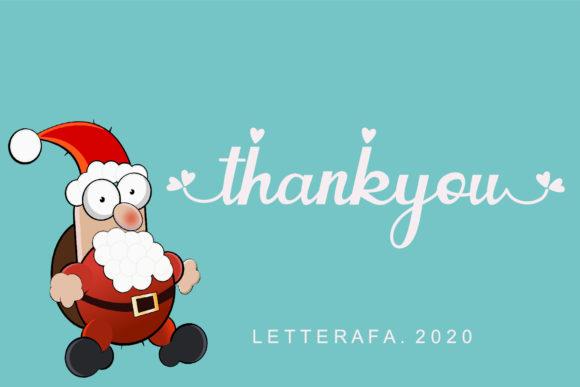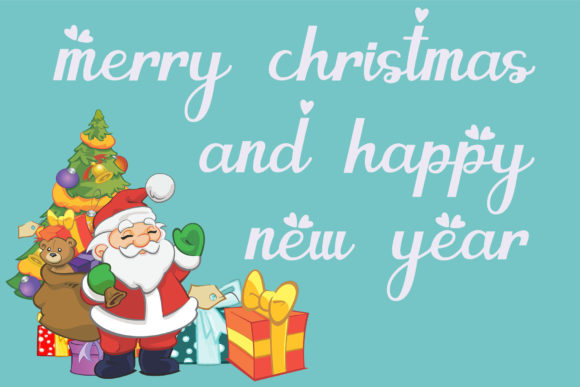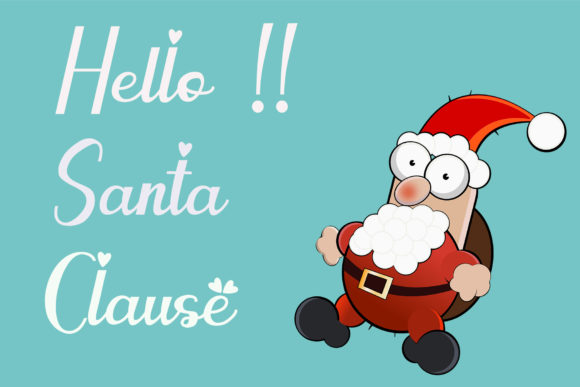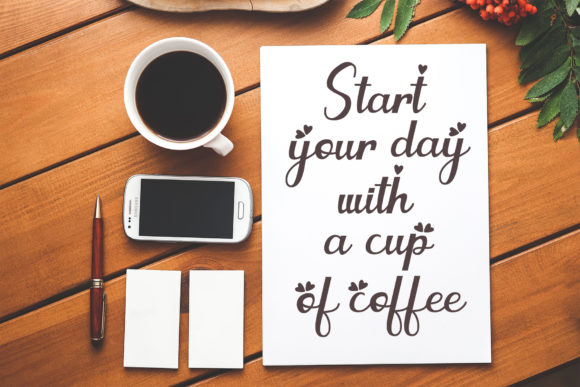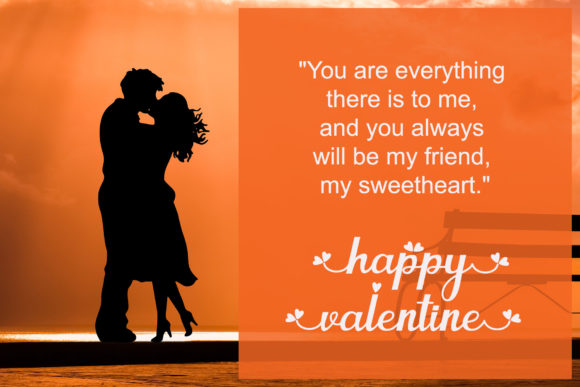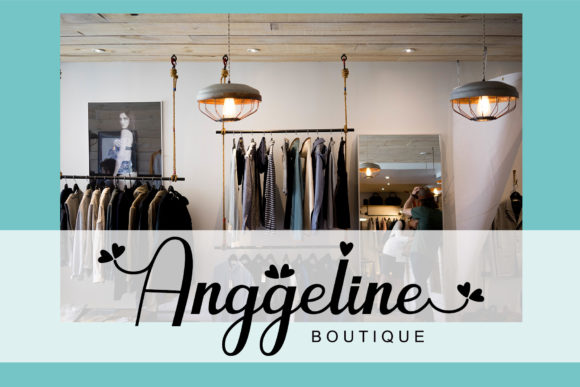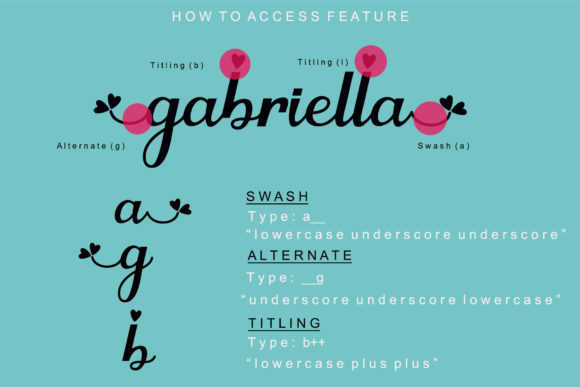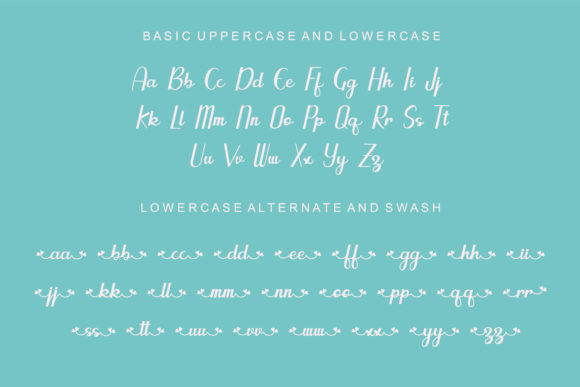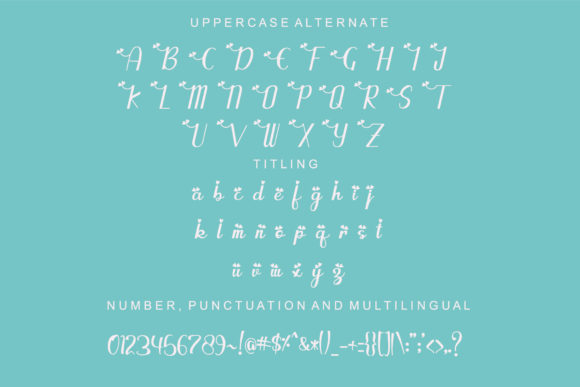
Gabriella Font
About Gabriella Font
Gabriella is a stunning and romantic cursive calligraphy typeface that adds a touch of elegance and grace to your designs. With its beautifully flowing characters and dynamic baseline, Gabriella is perfect for a wide range of applications, including logos, wedding invitations, headings, t-shirts, letterhead, signage, labels, news, posters, badges, and more.
The distinct feature of Gabriella lies in its dancing baseline, which gives the letters a whimsical and playful appearance. This unique characteristic makes Gabriella stand out and adds a sense of movement and fluidity to your text. It captures the essence of romance and sophistication, making it an ideal choice for projects that require a touch of elegance and charm.
Gabriella’s carefully crafted letterforms showcase the artistry of calligraphy. The sweeping curves and delicate strokes create a harmonious and pleasing visual aesthetic. Each character is meticulously designed to convey a sense of beauty and grace, making Gabriella a perfect choice for special occasions, such as weddings or formal events.
The PUA encoding of Gabriella allows you to easily access all the glyphs and swashes, providing you with a wide range of design possibilities. You can customize and embellish your text with flourishes, ligatures, and alternate characters, adding further elegance and personality to your designs.
Versatility is another strength of Gabriella. Whether you’re working on a logo design, creating wedding stationery, or designing promotional materials, Gabriella adapts beautifully to various contexts. Its classic and timeless appeal transcends trends, ensuring that your designs will stand the test of time.
Furthermore, Gabriella supports multiple languages, making it accessible to a diverse global audience. You can confidently incorporate different languages and writing systems into your designs, knowing that Gabriella will maintain its elegance and legibility.
In summary, Gabriella is a romantic and cursive calligraphy typeface that brings beauty and elegance to your designs. With its dancing baseline, wide range of glyphs and swashes, and support for multiple languages, Gabriella offers endless creative possibilities. Whether you’re working on a wedding invitation, logo, or any other project, let Gabriella add a touch of sophistication and charm to your designs.